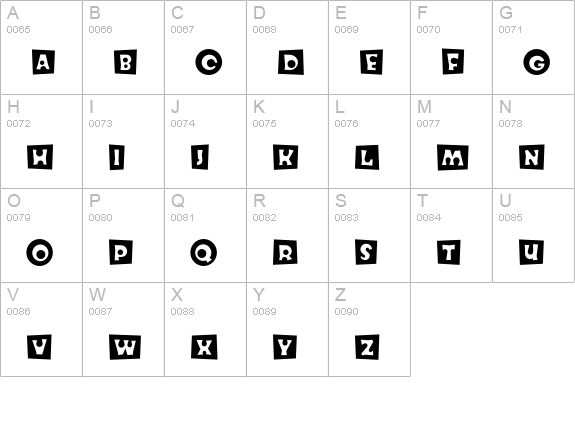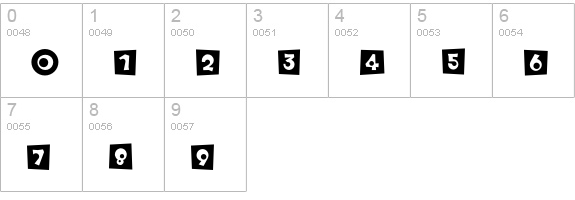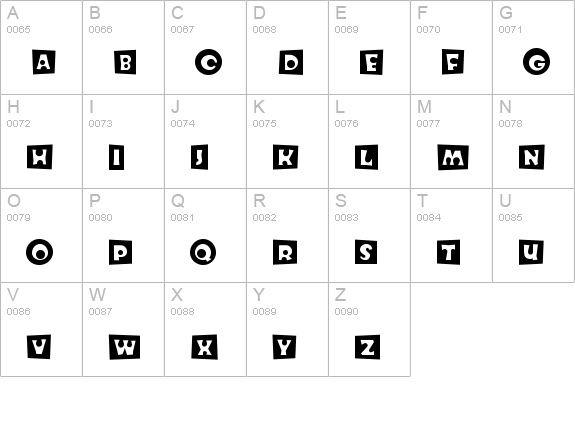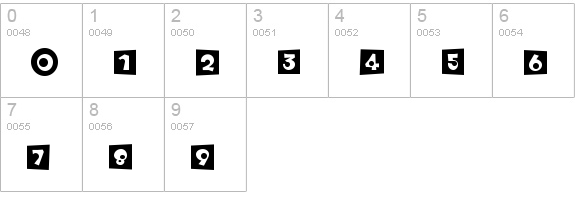
Knobcheese-Initials Font Details
Introducing Knobcheese-Initials, a truly unique and captivating font that will add a touch of personality to any project. With its intricate details and playful design, this font is perfect for making a bold statement. Whether you're designing a logo, creating eye-catching headlines, or adding a touch of flair to your social media posts, Knobcheese-Initials will not disappoint. But what sets Knobcheese-Initials font apart from the rest is that it is not only visually stunning, but it is also free to download. Yes, you read that right! This incredible font is freely available at FontsMarket.com, allowing you to enhance your designs without breaking the bank. Say goodbye to expensive font subscriptions or limited trial versions. With Knobcheese-Initials, you can access its full potential without any cost. This font is perfect for those who dare to be different and want to stand out from the crowd. Its quirky and innovative design will capture the attention of your audience and leave a lasting impression. Whether you're looking to create a vintage-inspired poster, a whimsical invitation, or a one-of-a-kind website header, Knobcheese-Initials font will add that extra touch of creativity you've been searching for. With its wide range of characters, including uppercase, lowercase, numerals, and punctuations, Knobcheese-Initials offers versatility and flexibility in your designs. No matter the project, this font has got you covered. Its clean lines and smooth curves make it easy to read, ensuring that your message is conveyed effectively. So why wait? Download Knobcheese-Initials font for free today at FontsMarket.com and let your imagination run wild. Unleash your creativity and give your designs the attention they deserve. With this captivating font, the possibilities are endless, and the results are sure to impress. Don't miss out on this opportunity to elevate your designs with a font that is both visually striking and freely available. Get Knobcheese-Initials font now and embark on a design journey like no other.